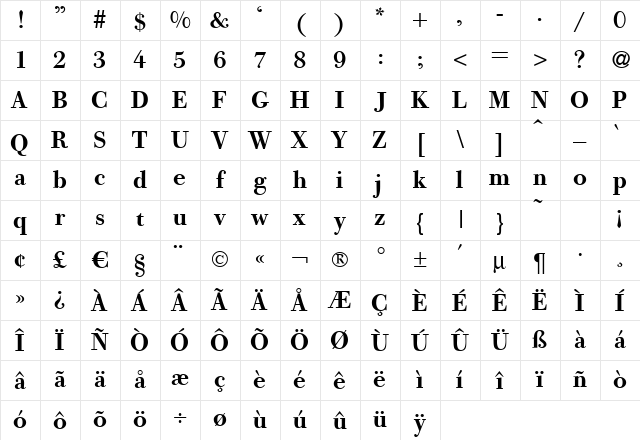
Giambattista Bold
Giambattista Family
Giambattista Bold
Design Context for Giambattista
Giambattista is a composed and adaptable typeface that performs quietly and consistently across a wide range of design contexts. Its bold stroke weight gives it real presence on the page.